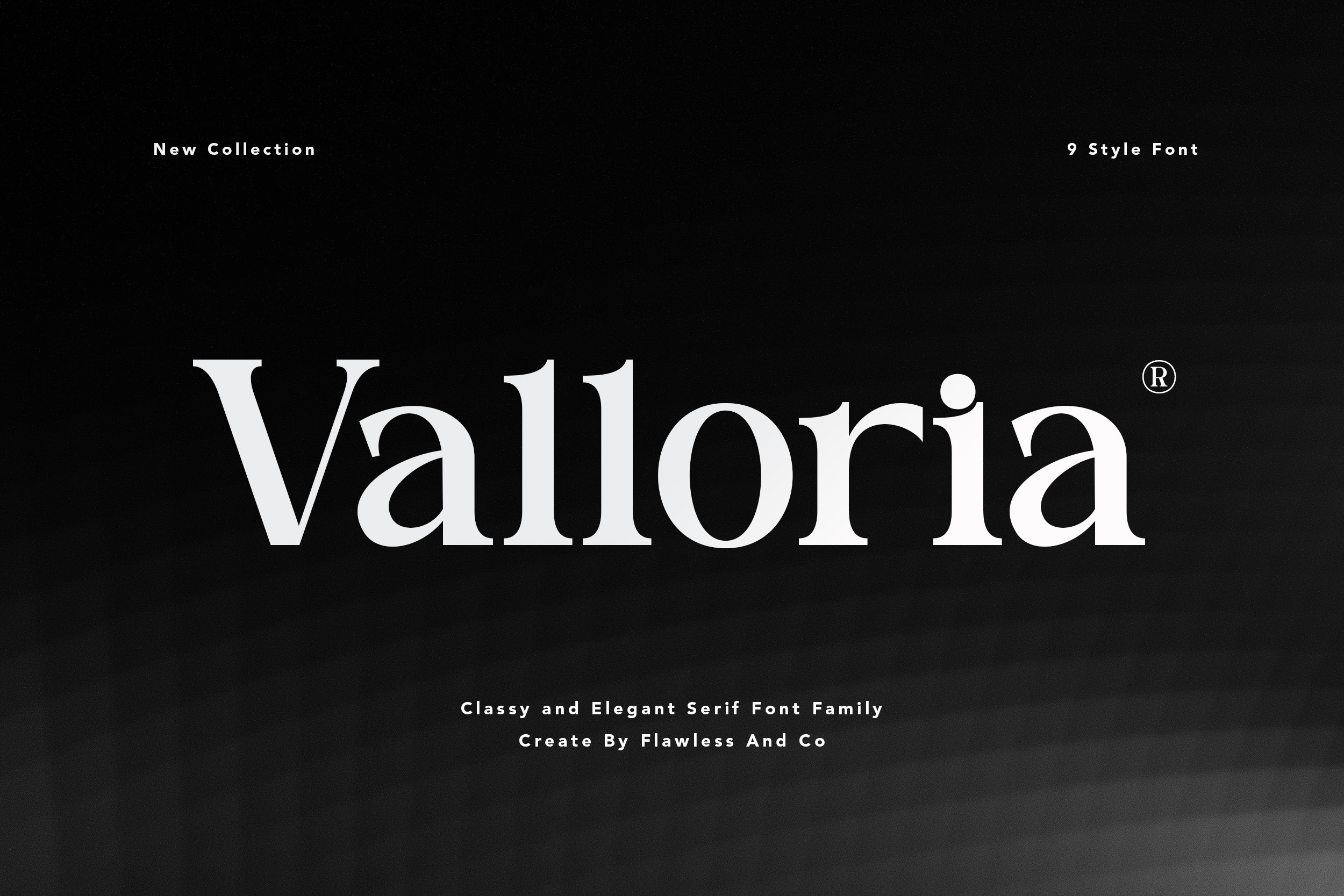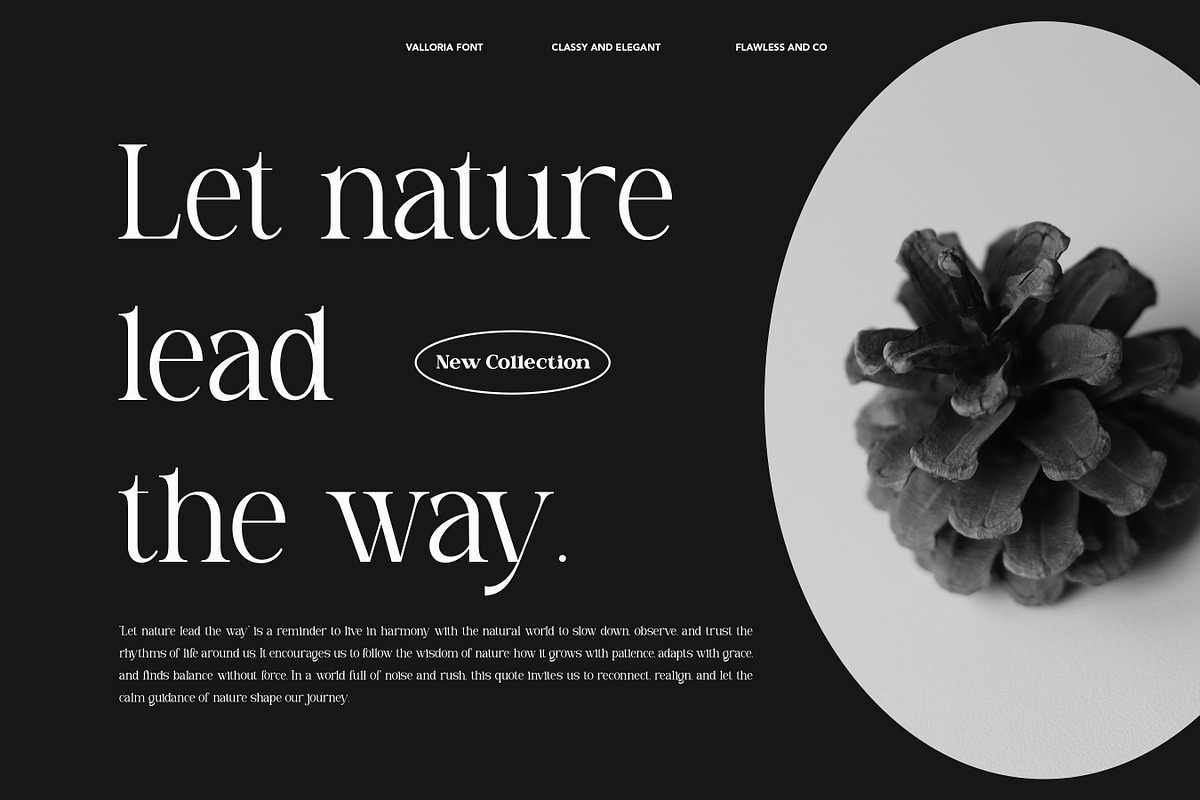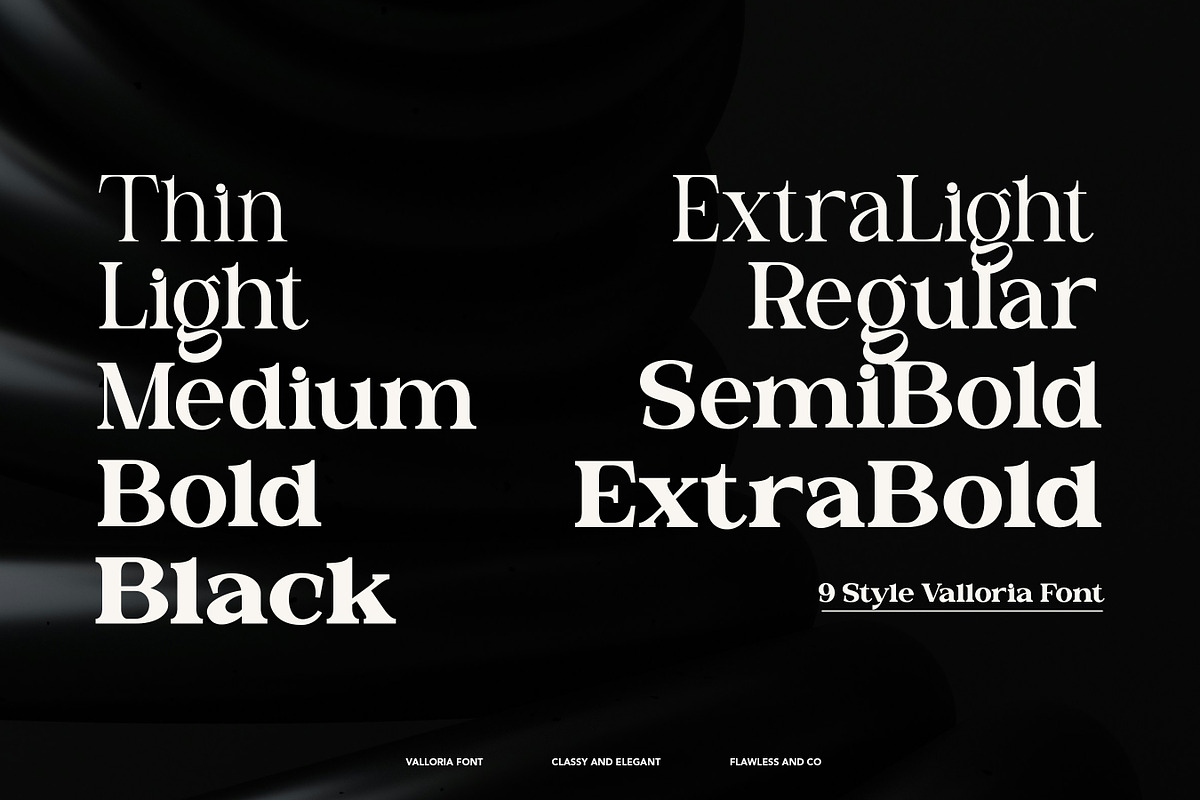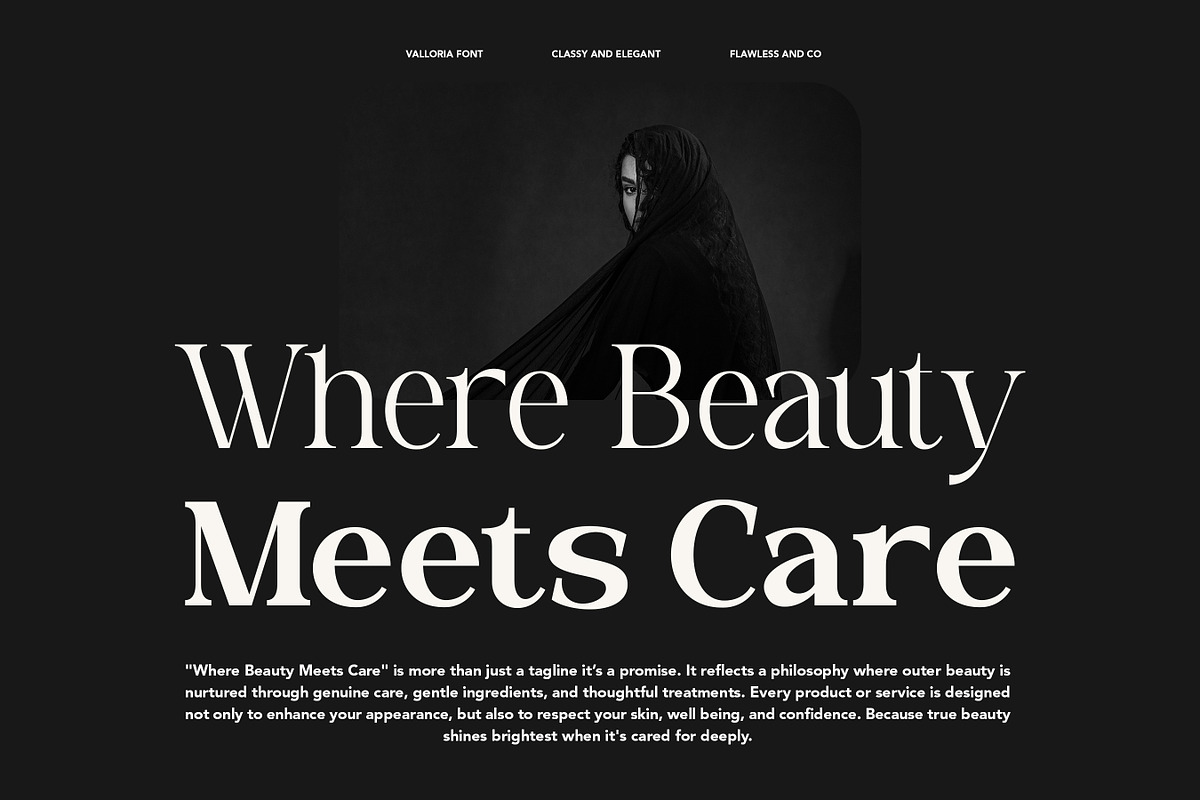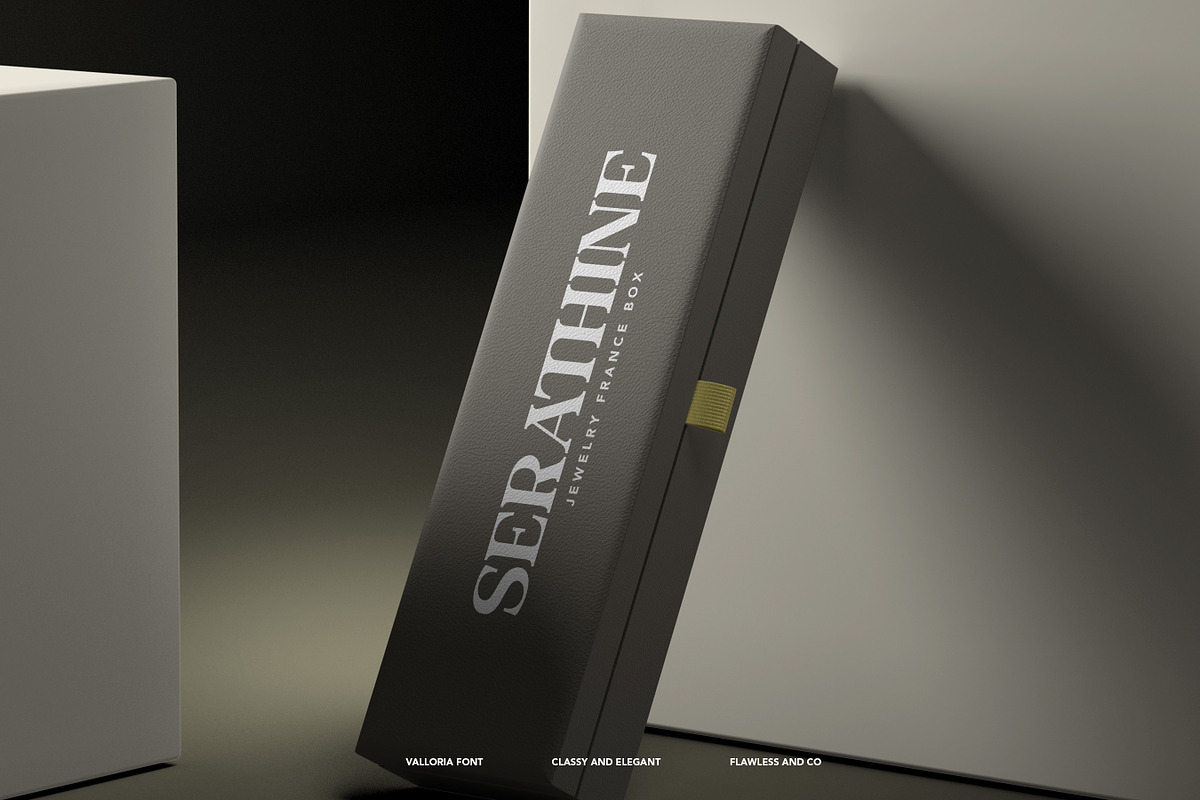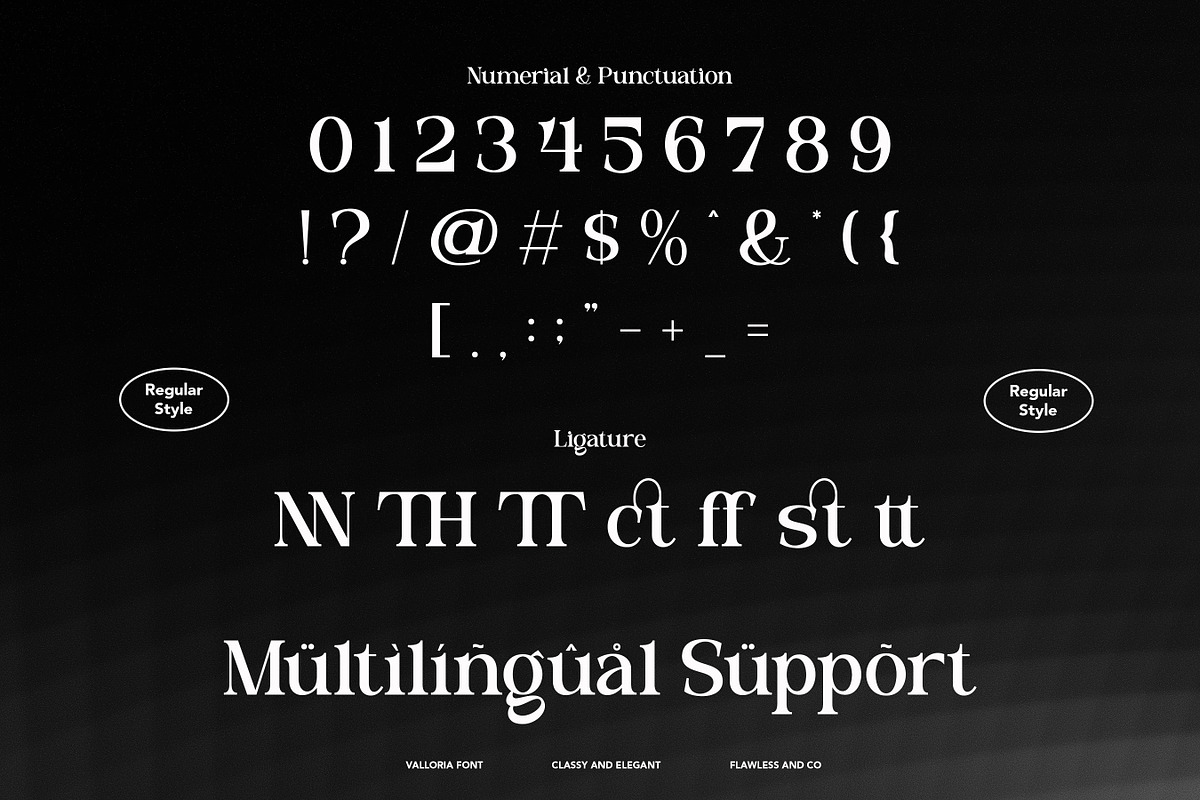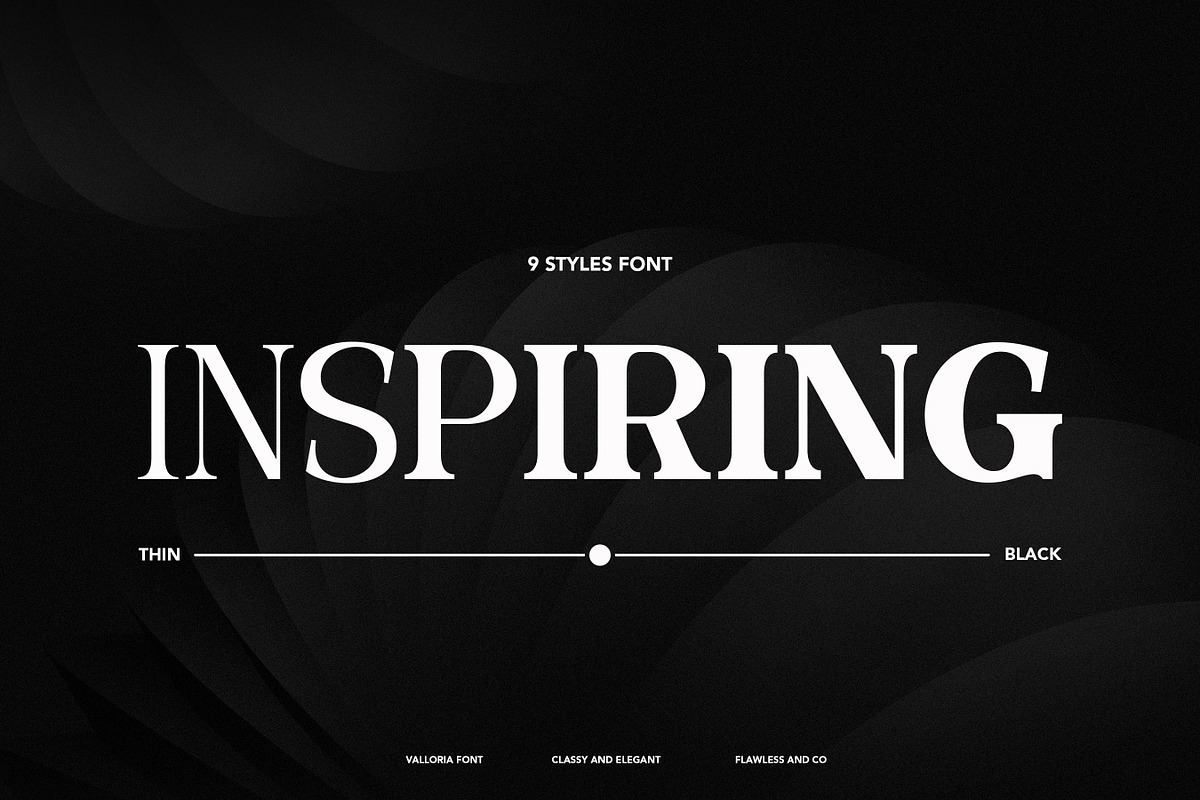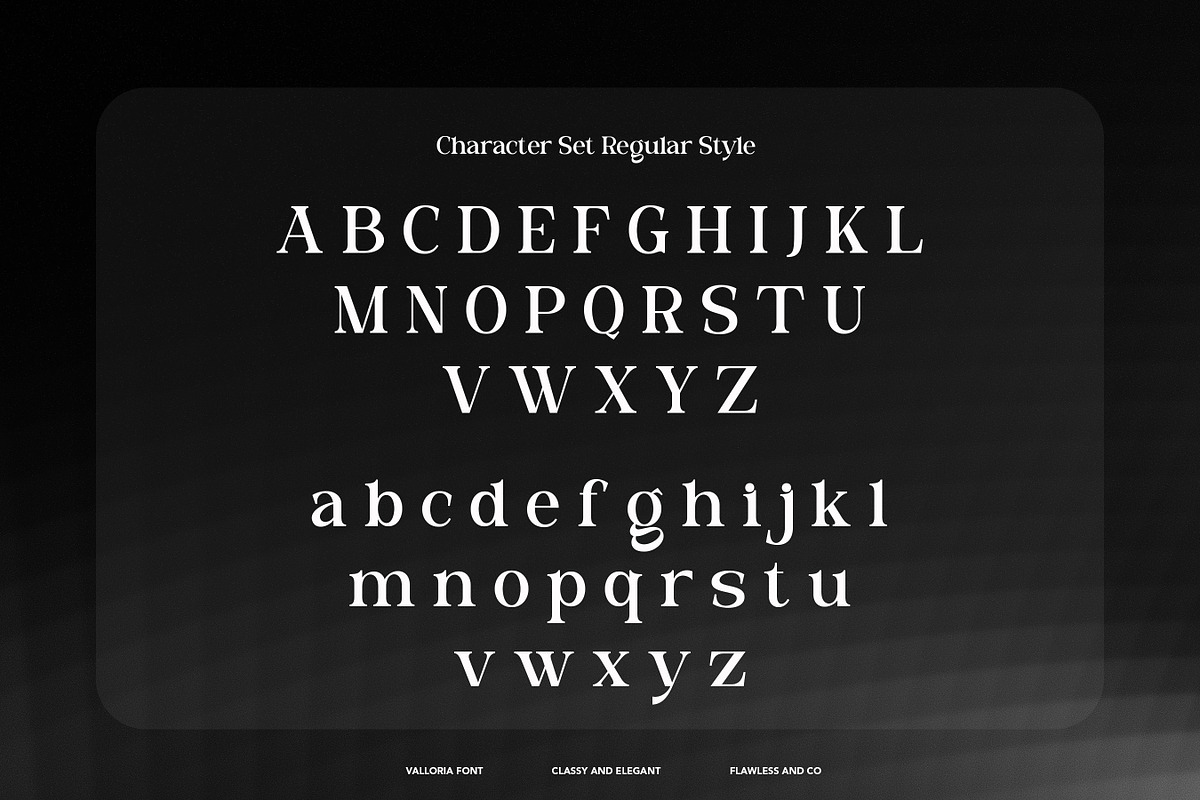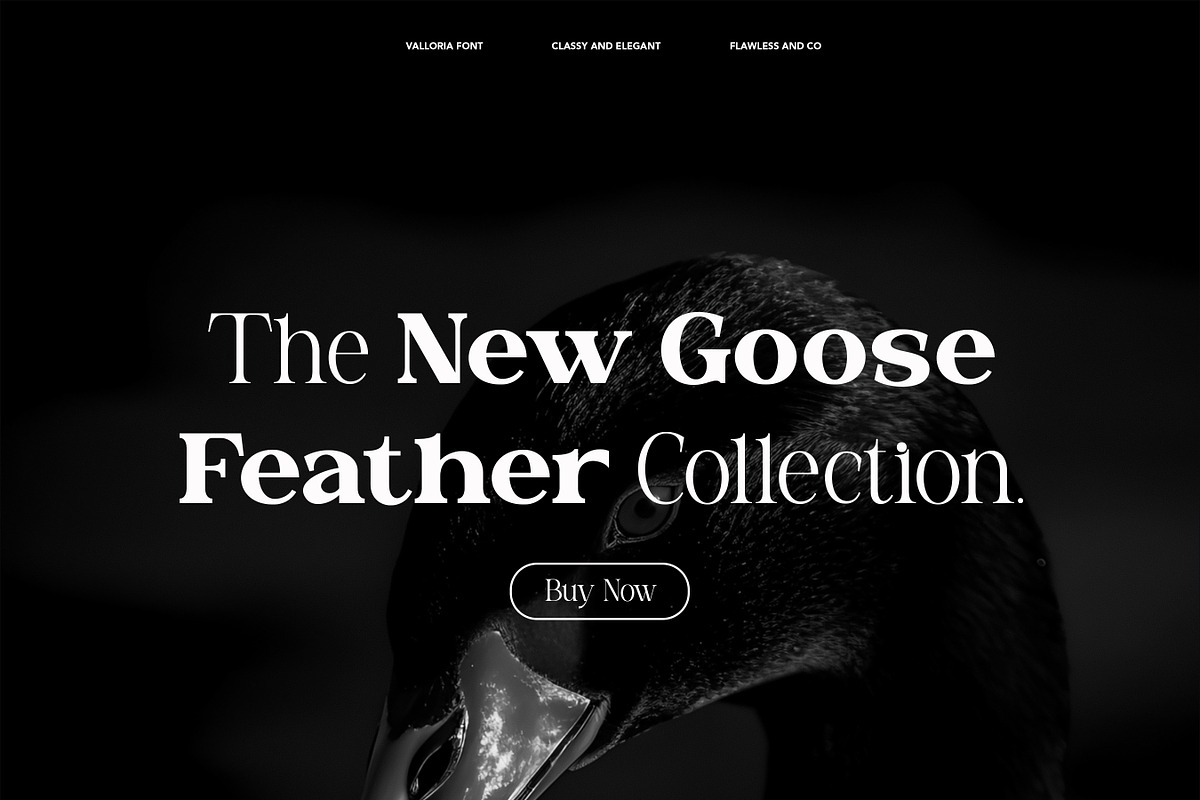
Valloria - Family Serif Font
Valloria - Elegant Serif Family Font
Valloria is a classy and elegant serif font family, crafted to bring sophistication and timeless charm to your design projects. With its refined letterforms, balanced proportions, and versatile styles, Valloria captures the perfect harmony between modern elegance and classic beauty. This font family is designed to elevate branding, editorial layouts, luxury packaging, and high-end presentations. From fashion magazines to jewelry branding, Valloria communicates prestige, professionalism, and refined taste. With nine versatile styles, it adapts seamlessly to both bold headlines and graceful body text, making it a complete typographic solution.
Who Should Use Valloria?
Valloria is perfect for designers, creatives, and brands who want to showcase elegance, sophistication, and timeless style in their projects. It’s the go-to choice for professionals who need a versatile serif font family that elevates both modern and classic designs with ease.
Ideal for:
- Luxury brands seeking a refined, high-class identity
- Editorial and magazine designers who want clean, elegant layouts
- Fashion, jewelry, and beauty businesses looking for a stylish typeface
- Agencies and creatives working on premium branding projects
- Designers who need a versatile serif family for both headlines and body text
A Must-Have Font for "Brand and Logo" Creators and Designers
Valloria is more than just a serif font family—it’s a design asset built to bring elegance, clarity, and refinement to your creative work. With its classy letterforms and versatile styles, Valloria ensures your brand and logo projects stand out with timeless sophistication. Whether you’re shaping luxury identities or crafting modern minimal designs, Valloria delivers the perfect balance of beauty and professionalism.
Why Choose Valloria for "Brand and Logo" Projects?
Valloria offers the perfect blend of elegance and functionality, making it an exceptional choice for brand and logo design. Its refined serif details convey trust, sophistication, and timeless style—qualities every strong brand needs. With multiple styles in one family, Valloria gives you flexibility to create bold headlines, graceful wordmarks, or subtle taglines, all while maintaining a cohesive visual identity. If you want your brand to stand out with professionalism and luxury, Valloria is the font that delivers.
Suitable For
- Brand identities and professional logo design
- Luxury fashion, beauty, and lifestyle projects
- Editorial layouts, magazines, and modern publications
- Packaging design for premium products
- Wedding invitations and elegant stationery
- Social media graphics and marketing content
- Corporate presentations and business materials